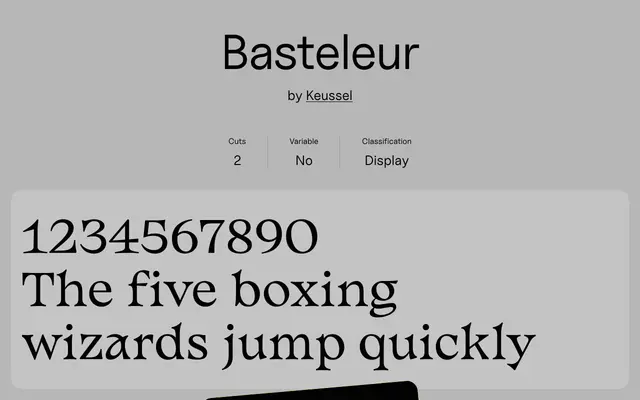
Basteleur
A two-cut display typeface by Keussel, available free under the SIL Open Font License for both personal and commercial use.
Released under the SIL Open Font License 1.1, Basteleur is a display typeface by Keussel offered in two cuts. Its classification as a display face suggests it is built for large-scale, expressive use rather than continuous reading. The licence permits commercial use, modification and redistribution, subject to the standard SIL conditions.
Classified as Display by the foundry; the name and designer suggest a decorative or craft-inspired character suited to headlines and expressive use rather than text setting.